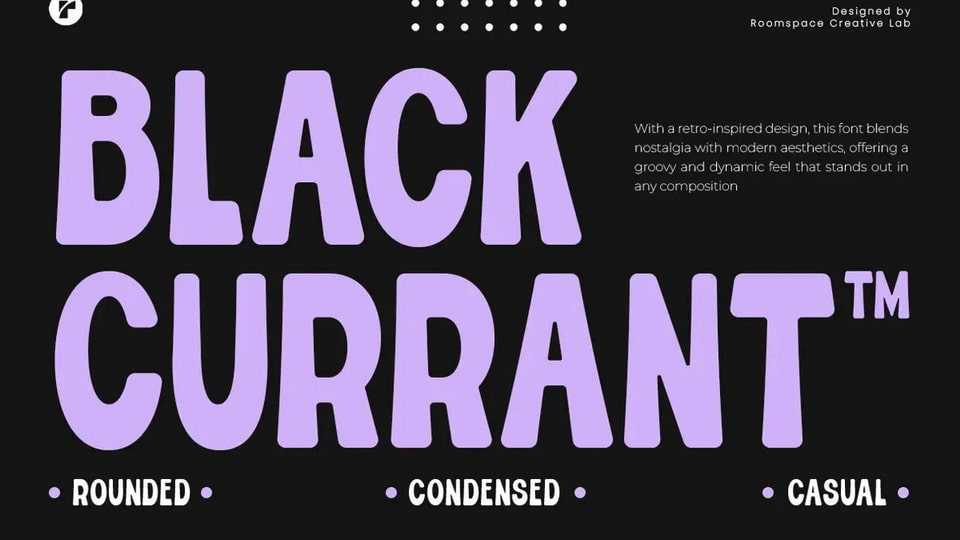
Black Currant Font › Fontesk – Download Grátis
Download Black Currant font, a decorative retro serif typeface designed to bring a nostalgic and charming vibe to your creative projects with soft, condensed letterforms and a touch of vintage flair.